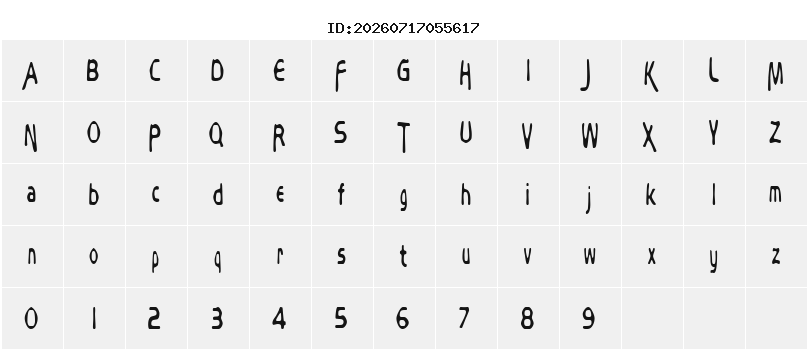
Bubbly Frog Preview
• Font Name: Bubbly Frog
• Font ID: Bubbly Frog
• Full Font Name: Bubbly Frog
About Bubbly Frog.ttf
Bubbly Frog.ttf is a modern, elegant sans-serif font designed for ultimate readability and visual harmony. Perfect for branding, headlines, web design, and print materials.